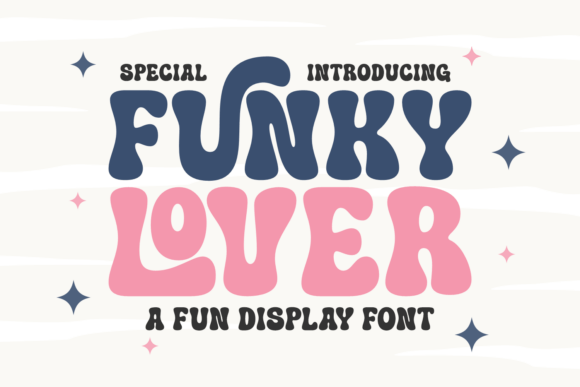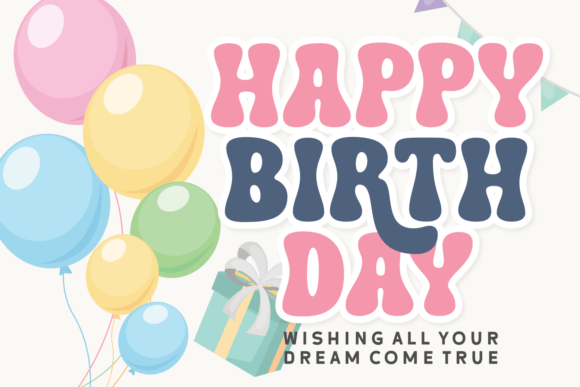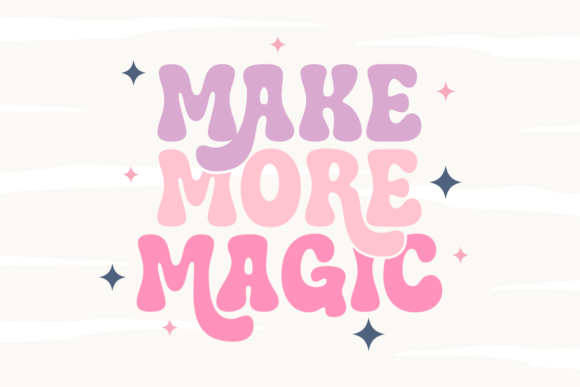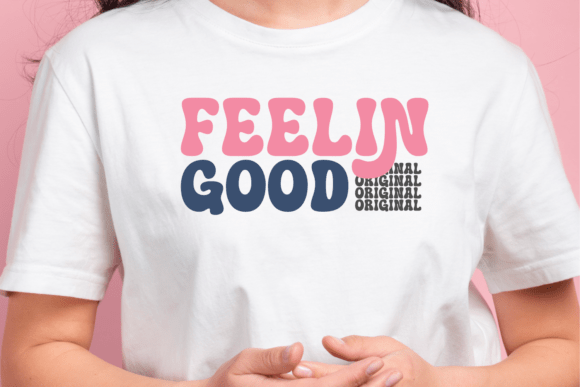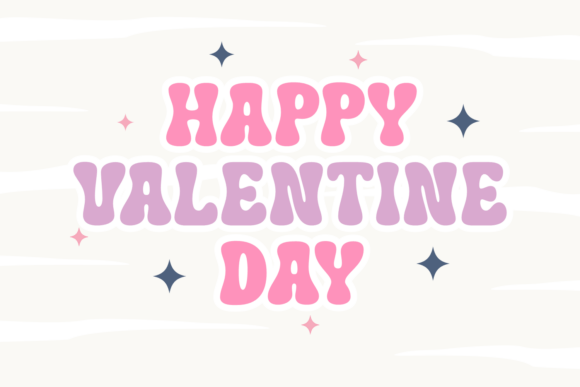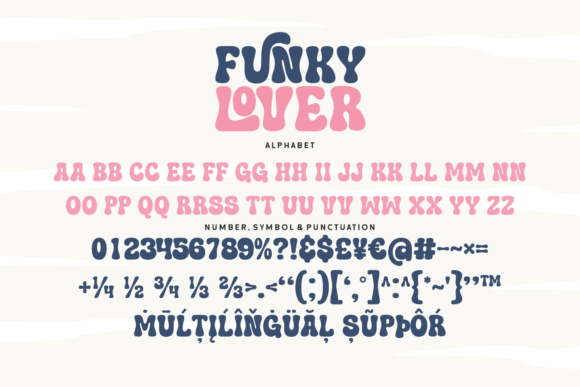
Unleash the Love: Unlocking the Magic of the Funky Lover Font
Have you ever been stuck trying to find the perfect font to convey the essence of Valentine’s Day? Do you struggle to capture the playful, whimsical vibe that makes your heart skip a beat? If so, you’re not alone. But fear not, dear designers, because we’ve got just the thing for you – the Funky Lover Font.
This spirited typeface is specifically designed to weave in a dash of playful enchantment, making it the perfect match for your custom-made projects. With its lively block letters and wavy lines, the Funky Lover Font is sure to leave a lasting impression on your audience. Whether it’s a mesmerizing greeting card, a lively social media post, or a quirky T-shirt design, this font is the perfect tool to help you express your creativity and capture the essence of love and joy.
As a designer, you know how valuable it is to have a versatile font that can adapt to any project. That’s why the Funky Lover Font is a game-changer – its multifaceted design makes it perfect for a wide range of applications, from Cricut and Silhouette projects to social media graphics and more.
Funky Lover Font Key Features
- Unique Characteristics: Funky Lover Font features a bold, playful, and energetic design, with a mix of rounded and angular shapes, making it perfect for creating eye-catching headlines and titles.
- Character Set: The font includes a comprehensive character set, covering Latin, Cyrillic, and Greek alphabets, as well as a range of punctuation marks and symbols.
- Font Style: The font comes in two styles: Regular and Bold, providing flexibility for designers to create contrasting and visually appealing combinations.
Funky Lover Font Review
As a designer, I’m always on the lookout for unique and eye-catching fonts to add some personality to my projects. The Funky Lover Font definitely caught my attention with its bold and playful style.
Here’s what works well:
- ✨ Funky Lover Font has a clear and recognizable style that’s perfect for headings and titles.
- ✨ The font is highly customizable, with a range of weights and styles to choose from.
- ✨ It’s great for creating a fun and energetic atmosphere in your design projects.
However, there are a few limitations:
- ⚠️ Funky Lover Font may not be the best choice for formal or professional projects, as its playful style can come across as immature.
- ⚠️ The font may not be as versatile as some other fonts, and may not work well in smaller text sizes.
Overall, I think Funky Lover Font is a great addition to any designer’s toolkit. While it may have some limitations, its unique style and high customizability make it a great choice for projects that need a bit of flair. Just be sure to use it judiciously and in the right context!
For best results, use the Funky Lover Font for titles, headings, and other attention-grabbing text elements. You can also use it to create a fun and playful vibe in your designs. Some common use cases include:
- Party invitations and event materials
- Food and drink menus
- Personalized gifts and stationery